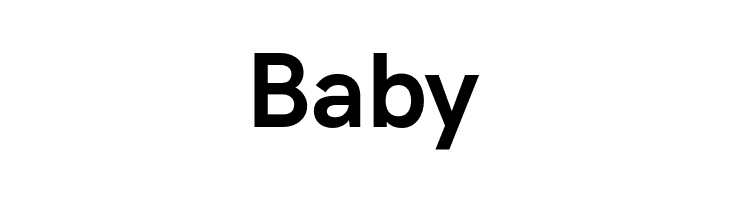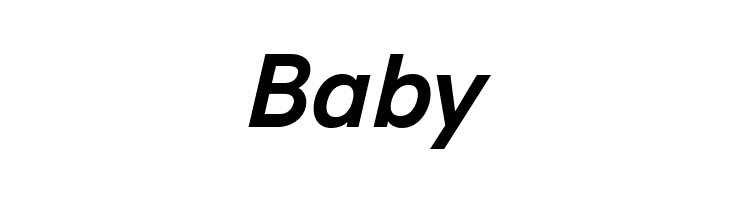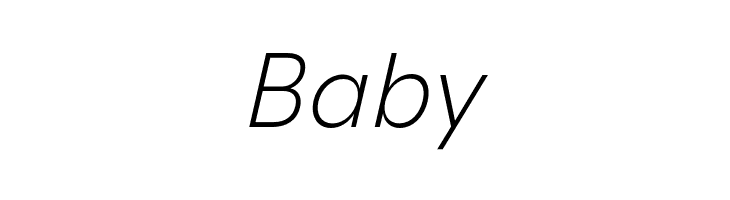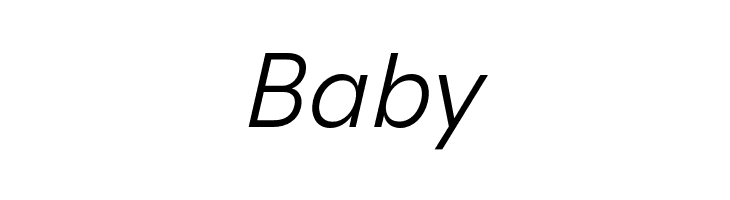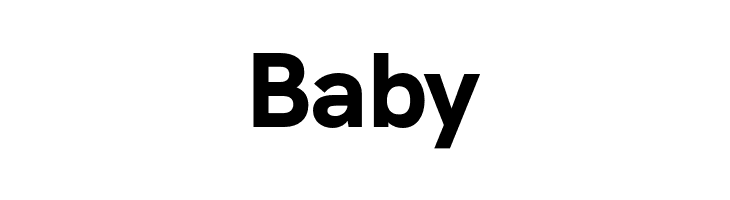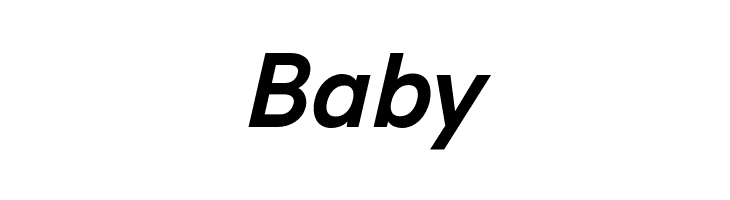
A bold, modern sans-serif font with clean lines and geometric shapes.
A bold, modern sans-serif typeface with clean lines and strong readability.
A bold, italicized sans-serif font with a modern and clean design.
A bold, modern typeface with clean lines and uniform stroke widths.
A modern, italicized typeface with clean lines and balanced proportions.
A clean, modern sans-serif font with a light weight and balanced design.
A sleek, modern sans-serif font with a light, italicized style.